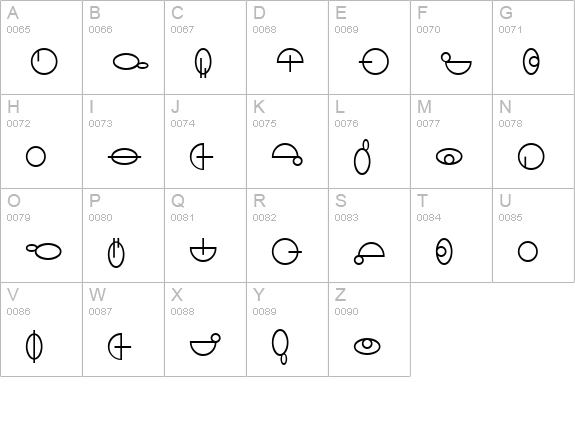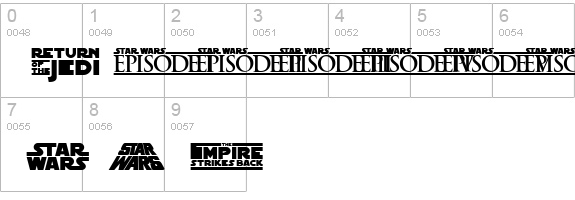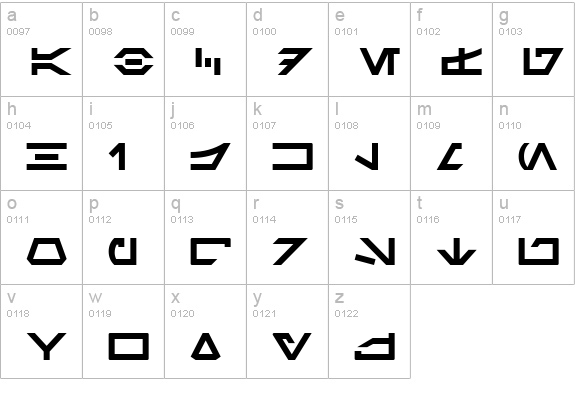
SF Distant Galaxy Symbols Font Details
The SF Distant Galaxy Symbols font is a captivating and otherworldly typeface that will transport you to distant galaxies and realms of imagination. With its intricate and futuristic design, this font is perfect for adding a touch of sci-fi and fantasy to your creative projects. Featuring an extensive collection of symbols inspired by the vastness of the cosmos, SF Distant Galaxy Symbols font allows you to communicate in a language beyond words. From celestial bodies like planets, stars, and moons to extraterrestrial creatures and futuristic technological icons, this font offers an array of visually striking symbols that will bring your designs to life. Not only does SF Distant Galaxy Symbols font offer an unparalleled selection of symbols, but it is also free to download at FontsMarket.com. This means that you can unleash your creativity and explore the limitless possibilities of this font without any cost. Whether you are designing a science fiction book cover, creating a futuristic logo, or adding a touch of cosmic flair to your website, SF Distant Galaxy Symbols font is the perfect tool to make your designs stand out. Download this extraordinary font today and let your imagination soar to the farthest reaches of the galaxy. With SF Distant Galaxy Symbols font, the possibilities are endless, and the universe is at your fingertips.